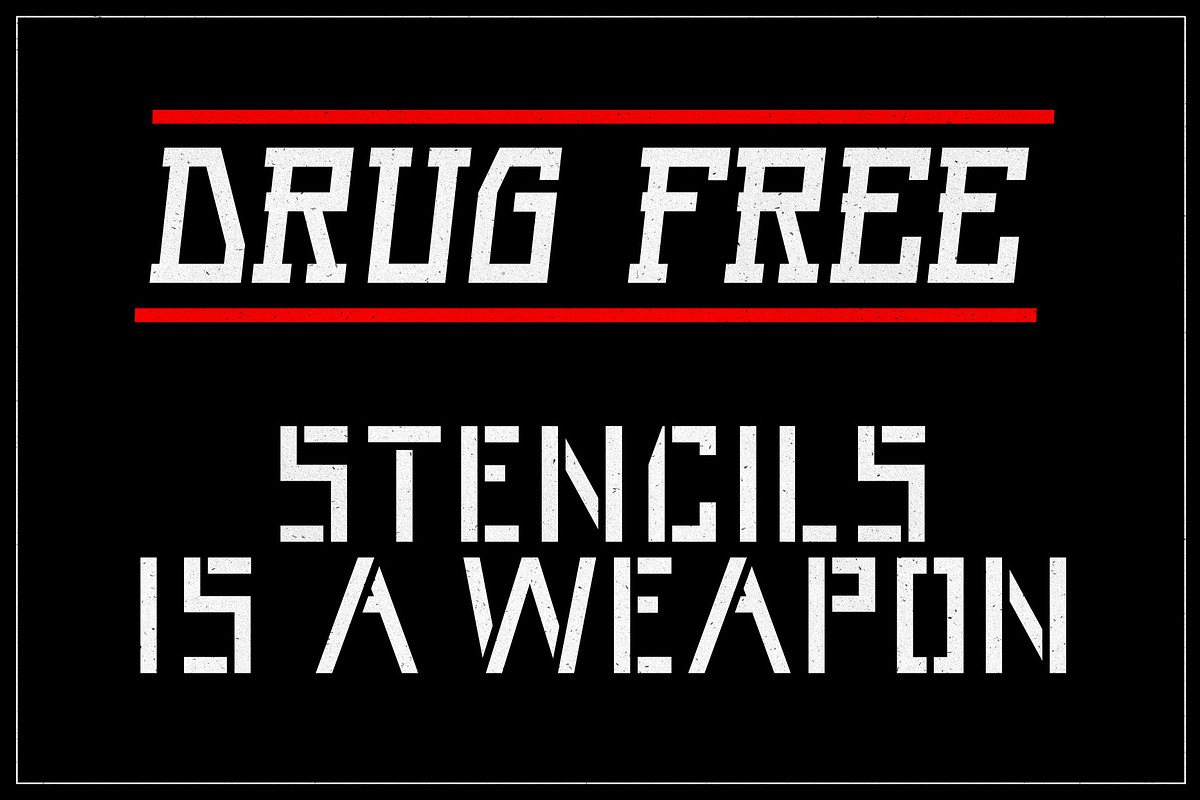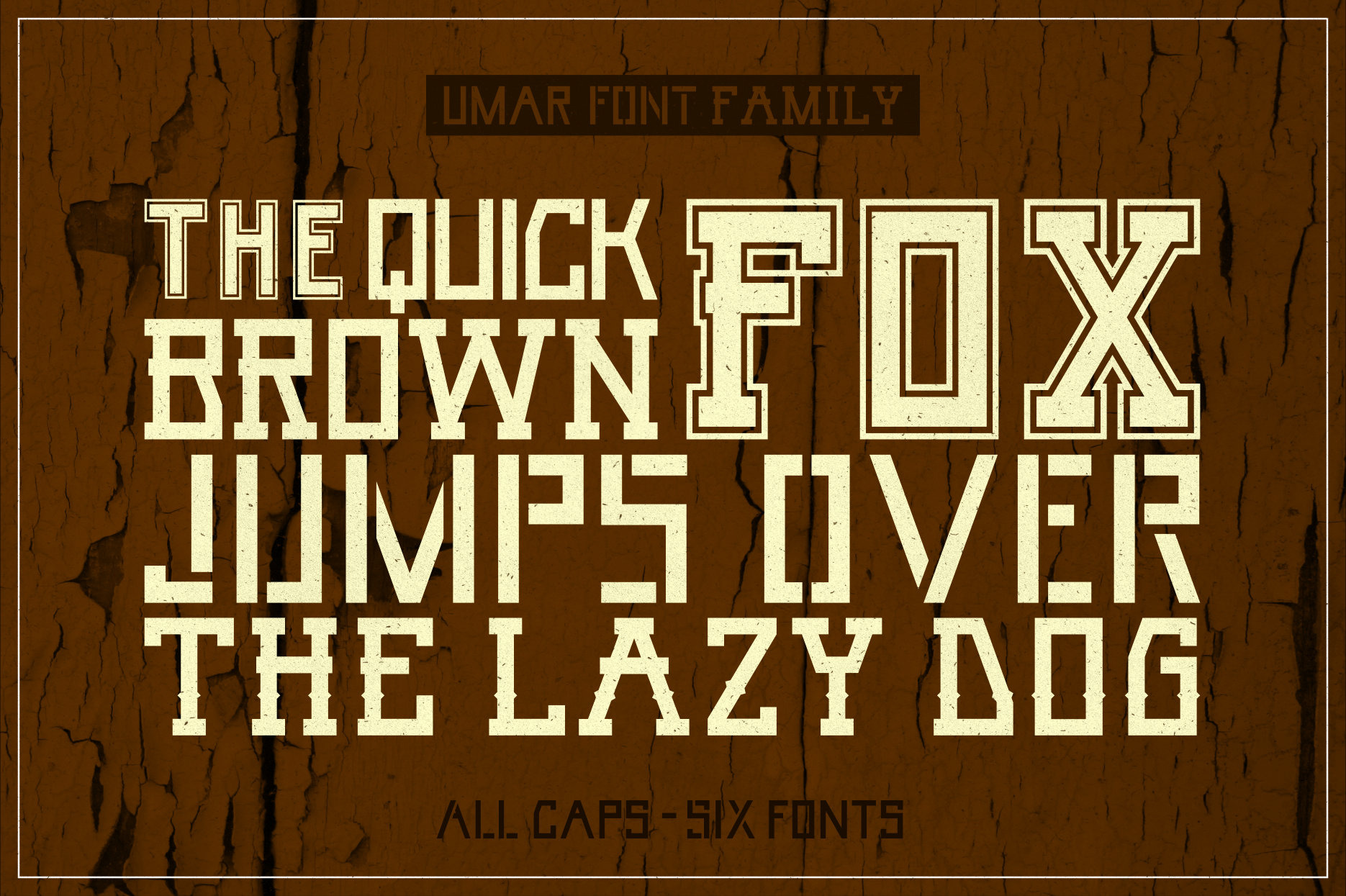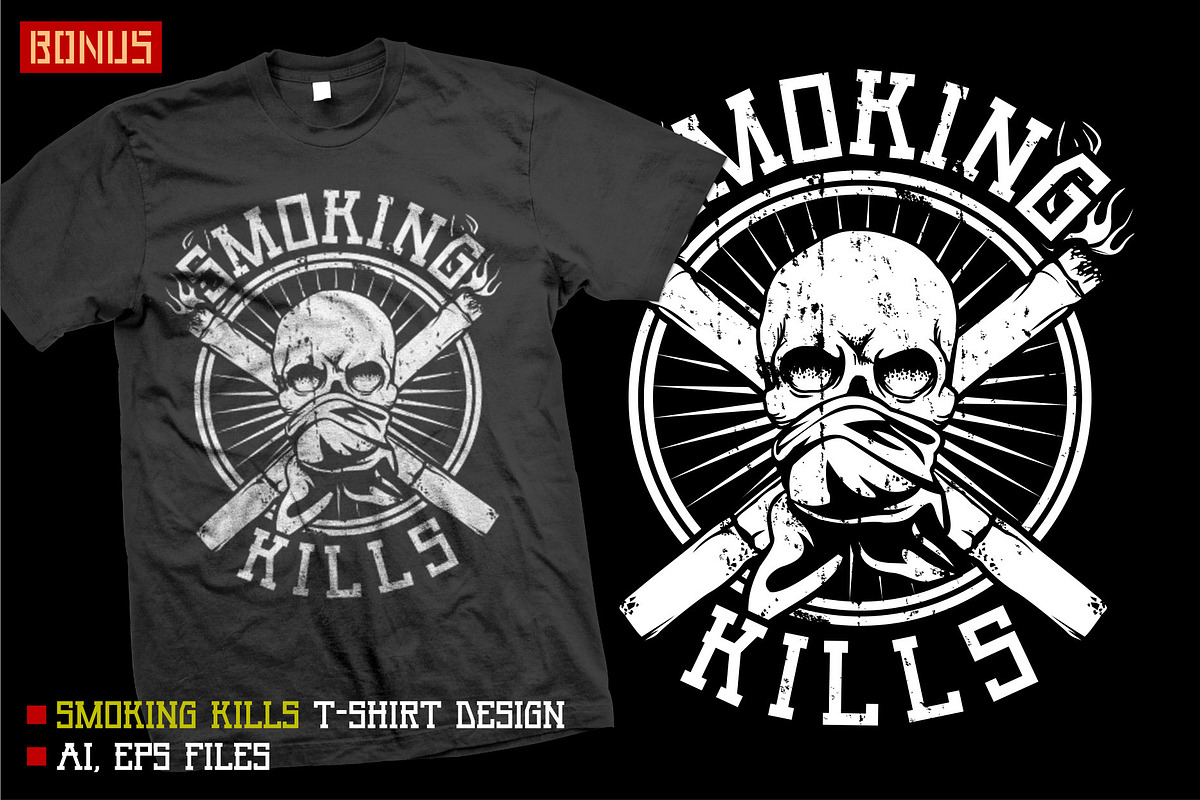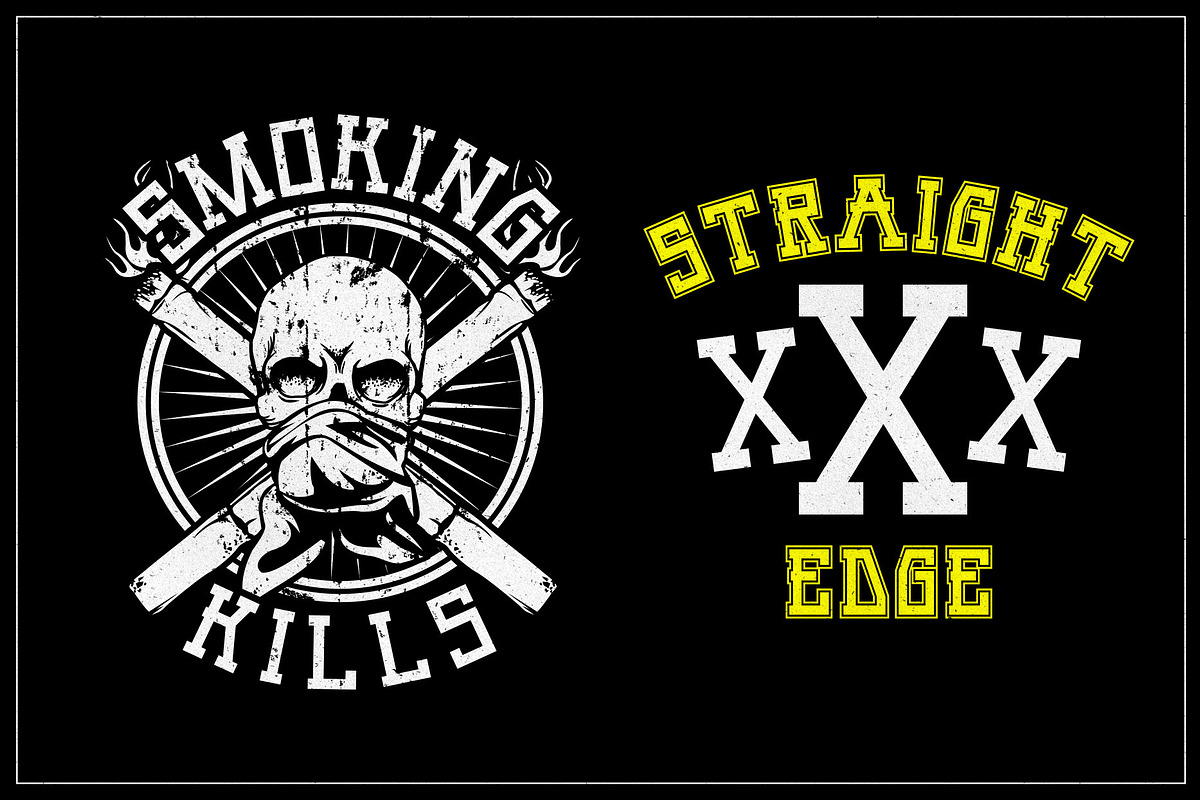
UMAR - 6 Fonts + Bonus
Positively Act, Straight Edge and Street Art Subculture is what made me to make this font family out. And also as a tribute for the one of the greatest person on Islam history: "Umar Bin Khattab"